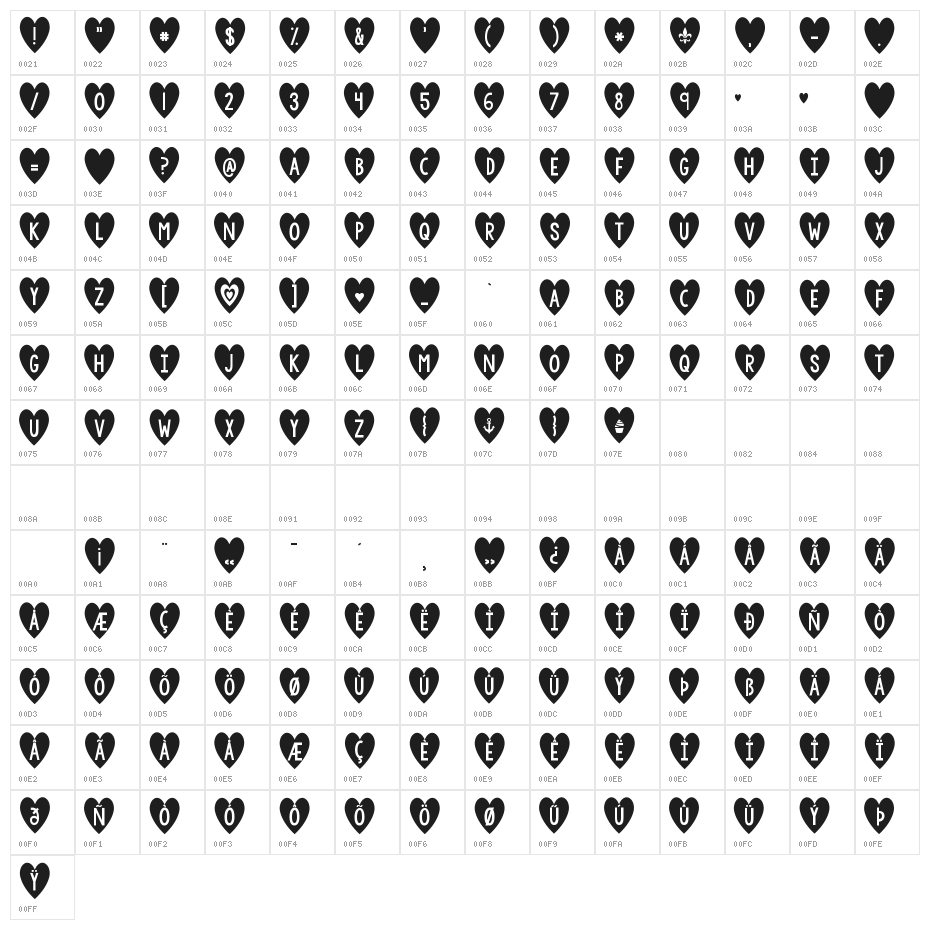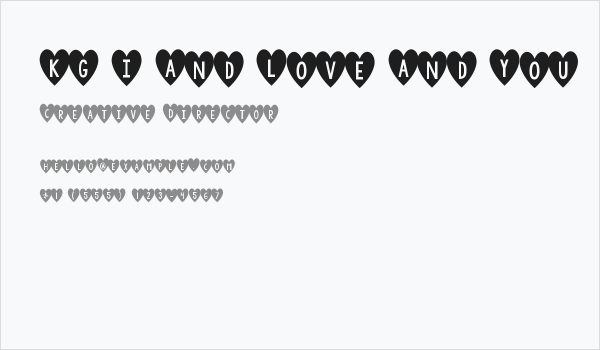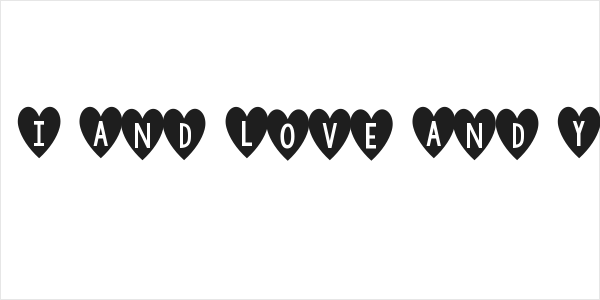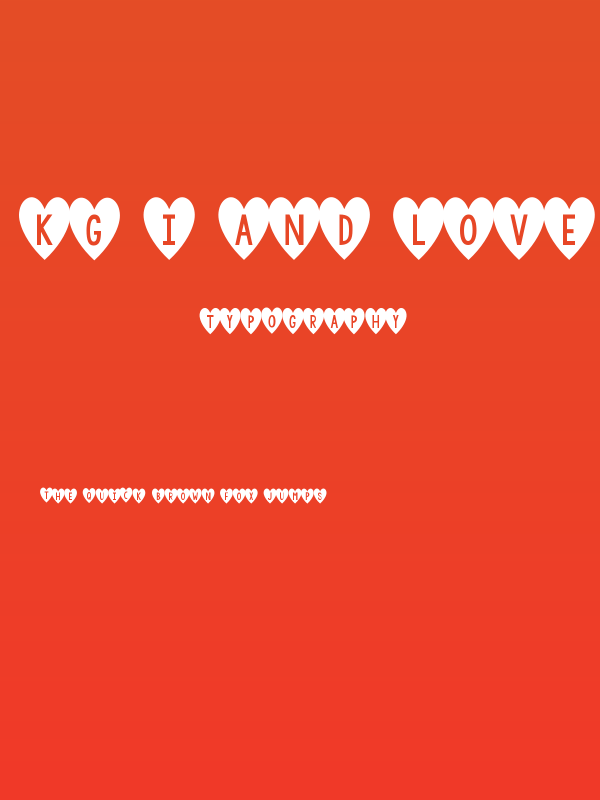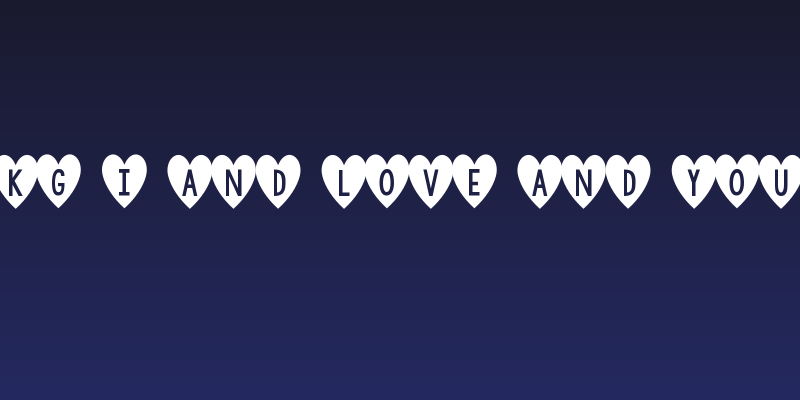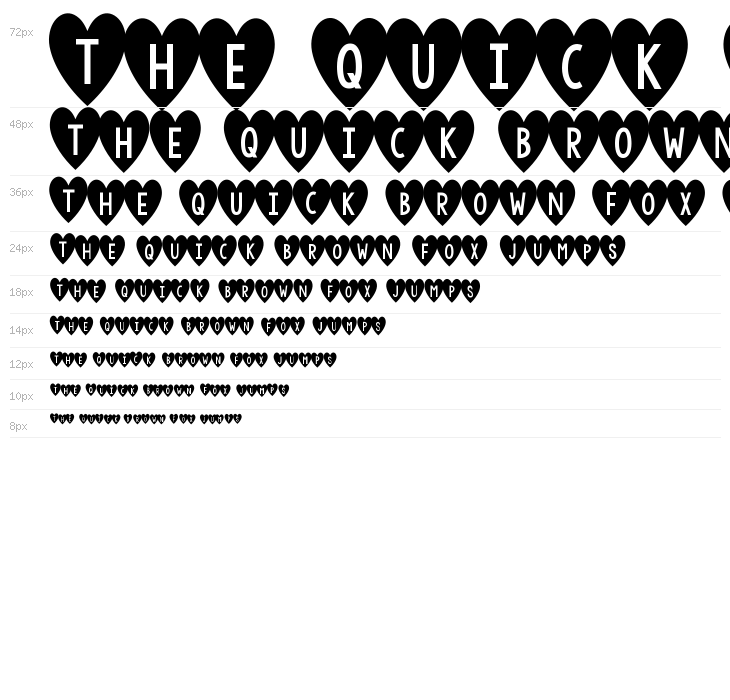
KG I And Love And You Font
KG I And Love And You Description
This playful and decorative font features characters enclosed within heart shapes, creating a whimsical and romantic aesthetic. The letters and numbers are bold and clear, making them easily readable despite the unique presentation. Each character is centered within a heart, giving a consistent and uniform appearance across the entire set. The font includes both uppercase and lowercase letters, numerals, and a variety of special characters, all maintaining the heart motif. This design is perfect for projects that require a touch of love and creativity, such as Valentine's Day cards, wedding invitations, or any romantic-themed design.
| Proposed Projects | Valentine's Day cards, wedding invitations, love-themed posters, and playful branding materials. |